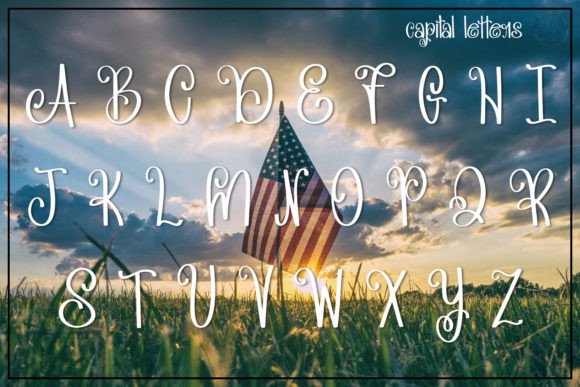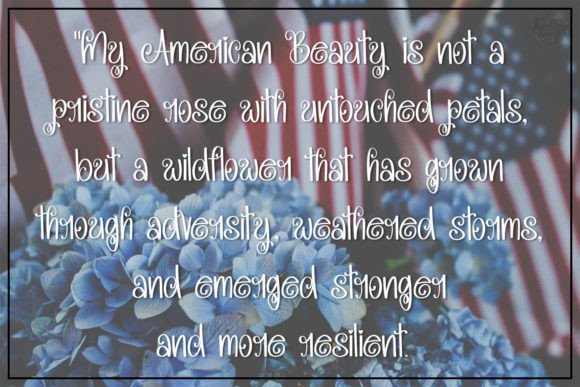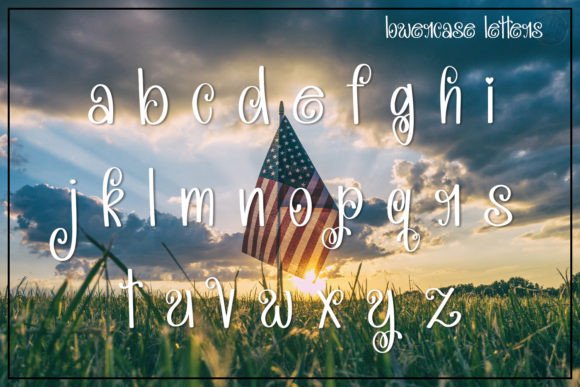
Introduction to My American Beauty Font
Do you ever have those moments when inspiration strikes in the most unexpected places? For me, it was on a long-haul flight from London back to the US, with nothing but a pen and a notebook to capture the ideas swirling in my head. As I began to letter out a new font, I knew I was onto something special – and that something special would eventually become My American Beauty Font.
My American Beauty Font is more than just a beautiful design; it’s a valuable resource for designers looking to elevate their creative projects. With its high-quality, transparent background, it’s perfect for use in a variety of applications, from branding and marketing materials to digital products and print designs.
Key Features of My American Beauty Font
- High-quality design with a unique, elegant style, perfect for creative projects.
- Transparent background, allowing for easy layering and customization in design applications.
- Includes a range of characters, including uppercase and lowercase letters, numbers, and special symbols.
- Perfect for use in wedding invitations, greeting cards, and other design projects requiring a touch of elegance and sophistication.
Honest Review: My American Beauty Font
I recently had the chance to experiment with the My American Beauty Font for a creative project, and I must say it’s been a great addition to my design resource library. ✨ The high quality of the font is immediately noticeable, with smooth lines and crisp details that make it perfect for a variety of applications.
The transparent background of this font makes it incredibly versatile, allowing me to easily integrate it into any design without worrying about unwanted background elements. Free download options are always a bonus, and I appreciate that My American Beauty Font is available without any restrictions.
Here are some of the key features that make My American Beauty Font stand out:
- High quality, professional design
- Perfect for creative projects and design resources
That being said, there are a few limitations to consider: ⚠️ the font may not be suitable for all types of designs, and some users may find the style a bit too ornate for certain projects.
Overall, I’m really impressed with My American Beauty Font and would definitely recommend it to fellow designers and creatives looking for a high-quality font for their next project.
Tips for Getting the Most Out of My American Beauty Font
To get the most out of My American Beauty Font, use it on a transparent background to give your design a clean and elegant look. Experiment with different font sizes and styles to add visual interest to your creative project.
My American Beauty Font is suitable for a variety of creative projects, including wedding invitations, branding materials, and social media graphics. Its elegant and sophisticated design makes it perfect for formal and professional applications.
Alternatives to My American Beauty Font
Compared to My American Beauty Font, Alex Brush Font is more subtle in its design, making it suitable for projects where a more understated look is desired. It’s also available for free download, making it a great design resource for those on a budget.
Great Vibes is a high-quality, modern script font that’s perfect for creative projects requiring a fun and energetic vibe. It’s ideal for use in social media graphics, advertisements, and other design elements where a playful tone is desired.
Q: Is My American Beauty Font suitable for high-quality printing?
Yes, My American Beauty Font is designed to be highly legible and clear, making it suitable for high-quality printing. The font’s high quality and transparency background ensure that it will look great on paper and digital screens.